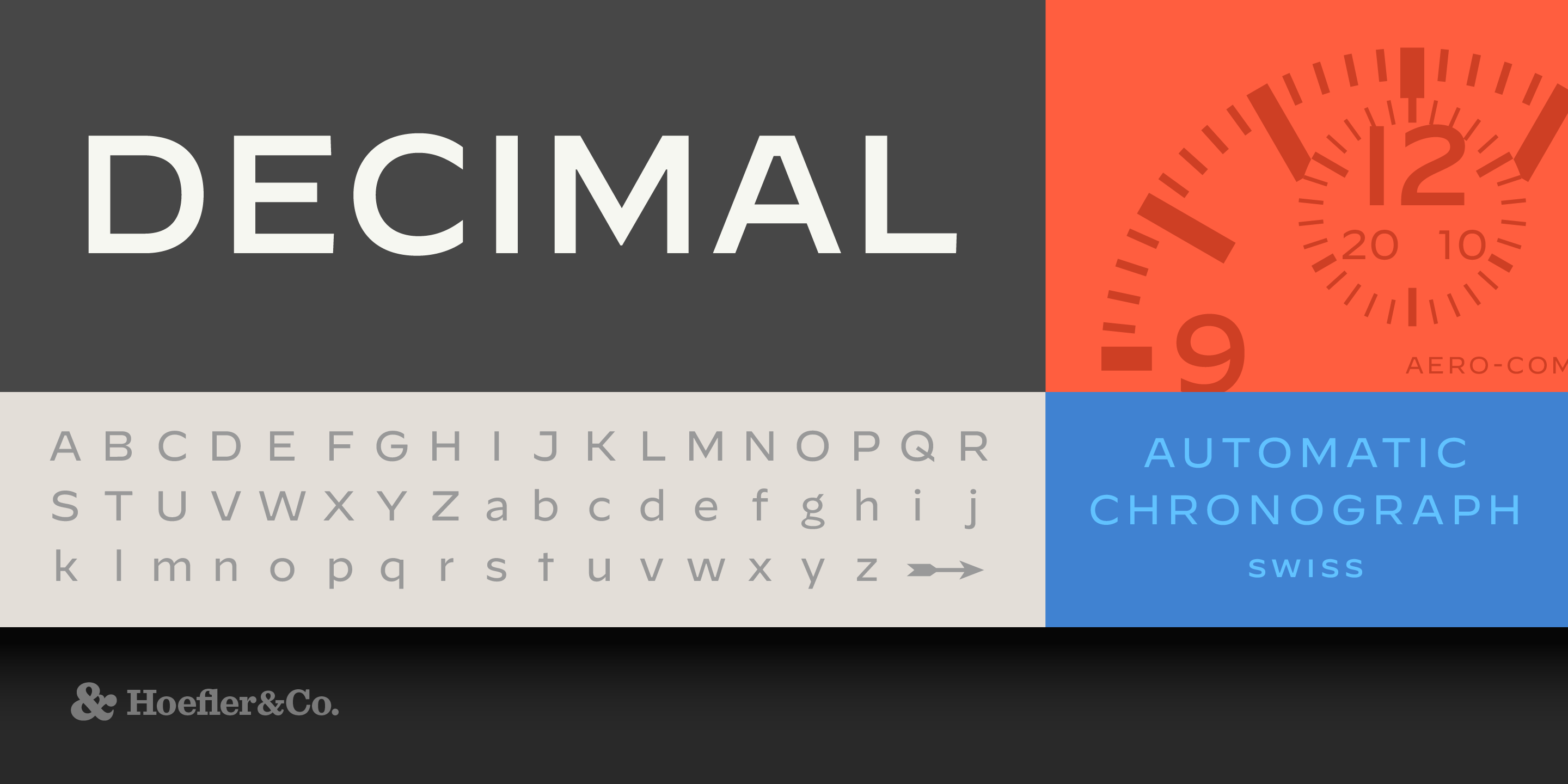
Decimal Font is perfect for financial reports, data visualization, accounting software, scientific publications, statistical analysis, digital dashboards, engineering documentation, mathematical publications, banking interfaces, and technical applications that require precise numerical clarity and systematic data presentation.
What makes Decimal Font truly exciting is its specialized design optimization for numerical data and systematic information display that ensures maximum clarity and accuracy in data-driven environments. This exceptional typeface features carefully engineered letterforms and numerals with enhanced spacing and alignment properties that eliminate confusion and improve reading speed in number-heavy contexts. The font's technical precision and systematic approach make it perfect for applications where data accuracy and visual clarity are absolutely critical for professional decision-making.
The Decimal Font family includes comprehensive weights and styles: Light, Regular, Medium, Bold, and Tabular variations designed specifically for numerical alignment. Each family member maintains the distinctive systematic character while offering complete flexibility for complex data presentation and technical documentation. The extensive character set supports mathematical symbols, currency signs, and scientific notation, making it suitable for professional analytical applications.
When you choose Decimal Font Free Download, you're selecting a typography solution engineered specifically for the modern data-driven world. This specialized typeface excels in applications where numerical precision is paramount, delivering exceptional clarity and systematic organization while maintaining professional appearance. Whether you're designing financial interfaces, scientific reports, data dashboards, or technical documentation, this font provides the systematic excellence and numerical precision that resonates with professionals who demand accuracy and clarity in data communication.